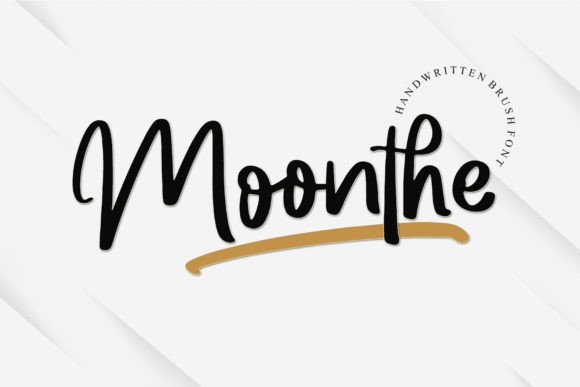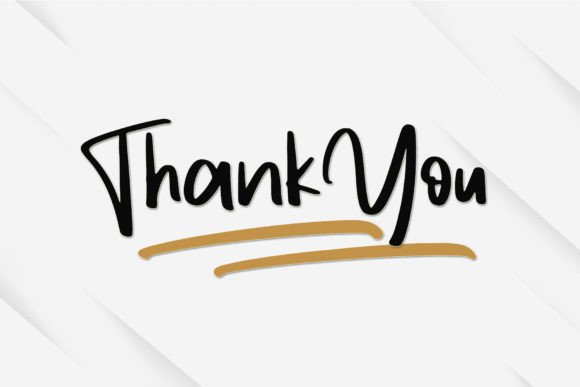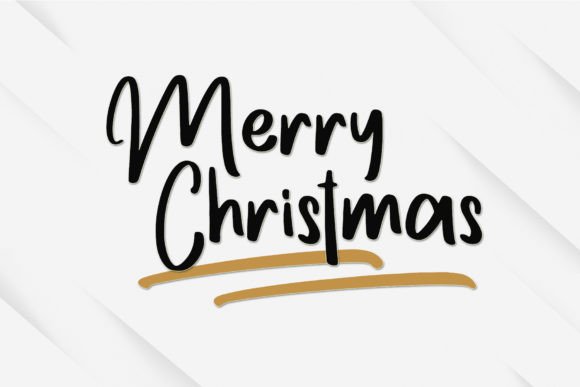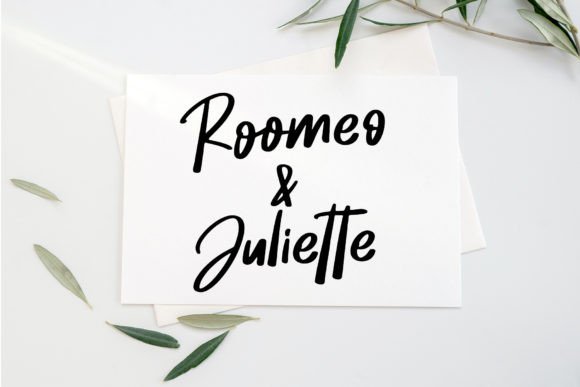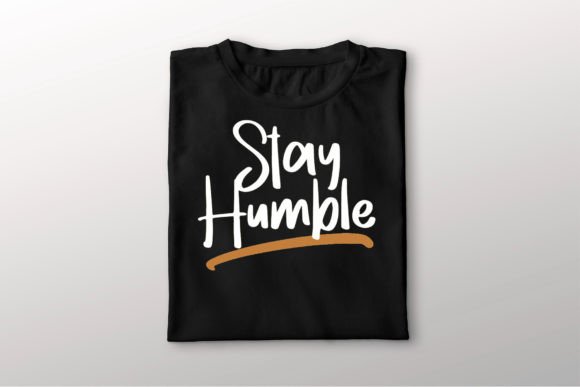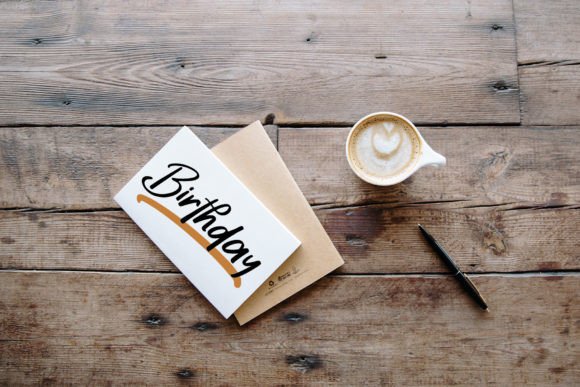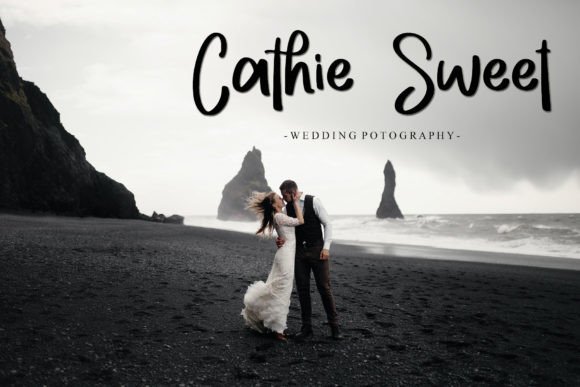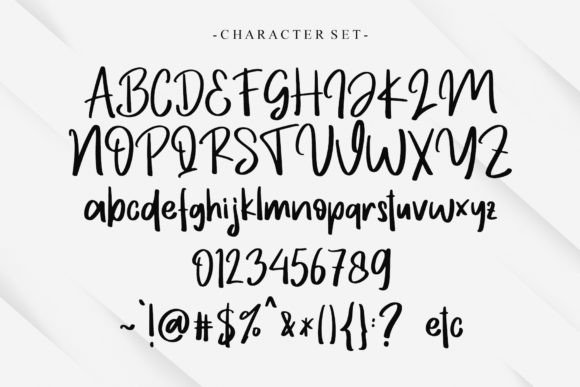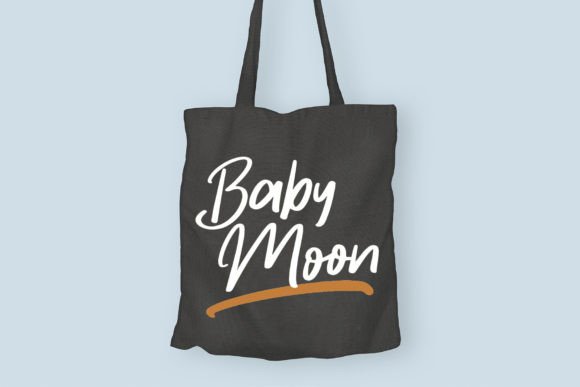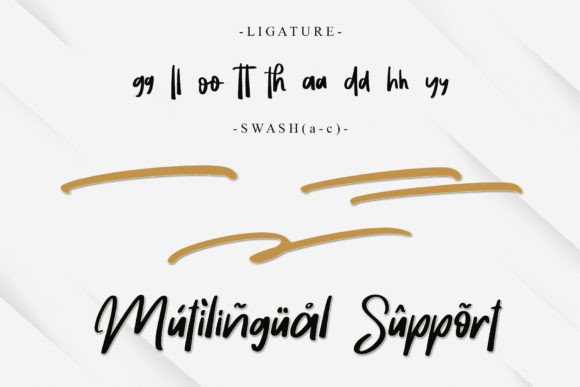
Moonthe Font
About Moonthe Font
“Moonthe is a natural and fresh handwritten display font that brings a tough-looking, strong brush touch to your designs. This typeface is ready to rock every creative endeavor, making it perfect for logos, quotes, posters, clothing, and much more! Add Moonthe to any of your creative projects and be amazed by the compelling outcome it generates.
The unique charm of Moonthe lies in its natural and fresh handwritten style, where each letter is imbued with a strong brush touch. This font becomes a powerhouse for designers seeking a tough and impactful aesthetic for various applications.
Whether you’re crafting a bold logo or designing impactful posters, Moonthe stands out as a font that adds a dynamic and strong brush touch to your text. Its versatility allows it to adapt seamlessly to different design contexts, making your creations visually striking.
Imagine Moonthe elevating your projects, adding a natural and tough brush touch to your text. Its fresh and impactful style becomes the defining element that sets your designs apart, creating a visual experience that resonates with strength and creativity.
As you explore the nuances of Moonthe, you’ll discover its potential to transform ordinary projects into visually compelling expressions. Let it be the font that brings a tough and dynamic touch to your creative vision, making your designs stand out with a natural and fresh handwritten aesthetic. With Moonthe, every stroke becomes a brushstroke of impact, making it an invaluable asset for designers seeking a bold and versatile font.”